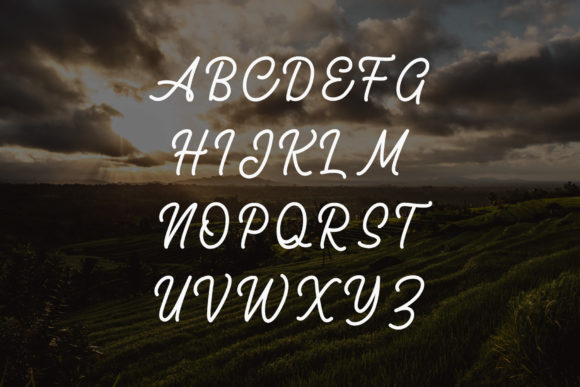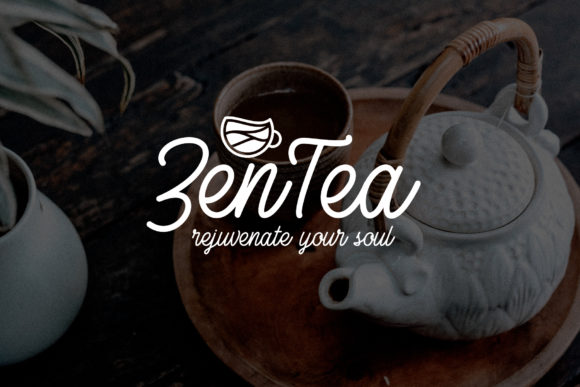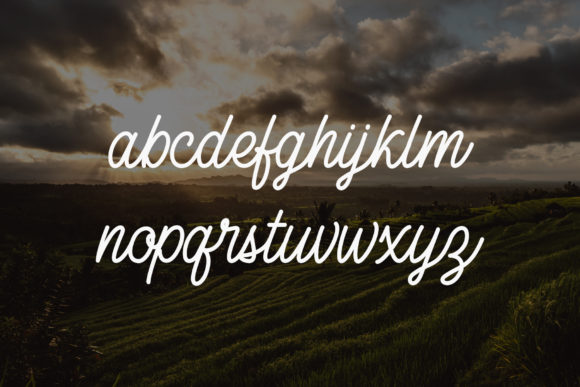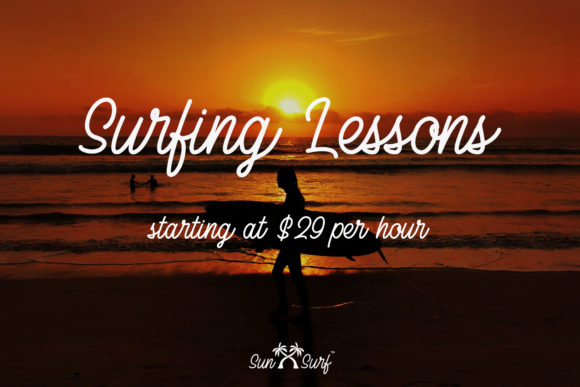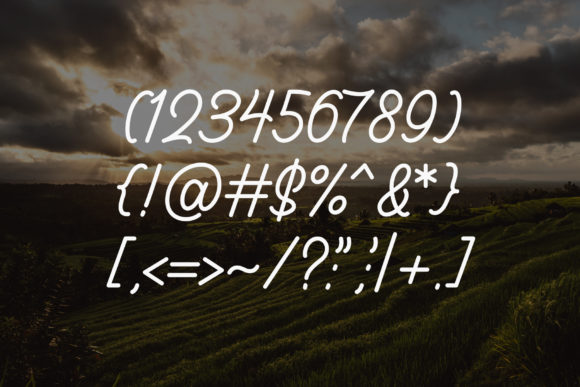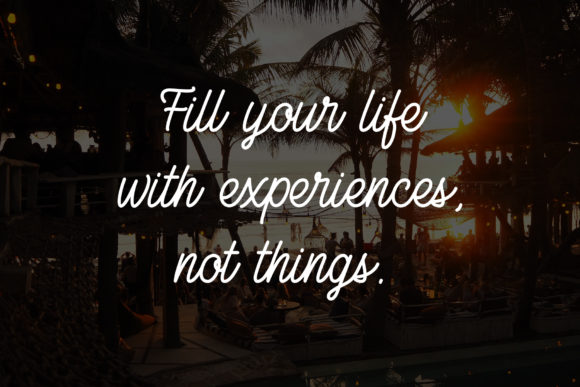
Canggu Font: The Perfect Handwritten Font for Your Creative Projects
Are you a designer or crafter looking for a beautiful and versatile font to elevate your creative projects? Look no further than Canggu Font! This gorgeous handwritten font is perfect for a wide range of applications, from clothing and branding to posters, signage, wedding invitations, badges, t-shirts, labels, and so much more.
What is Canggu Font?
Canggu Font is a stunning handwritten font that exudes elegance and sophistication. Its unique and flowing script is perfect for adding a personal touch to your designs, making them stand out from the crowd. The font is designed to be highly legible, making it suitable for use in a variety of contexts, from digital displays to print materials.
Features of Canggu Font
Canggu Font boasts a range of features that make it an ideal choice for designers and crafters. Some of its key features include:
- Handwritten script: Canggu Font features a beautiful, handwritten script that adds a personal touch to your designs.
- High legibility: The font is designed to be highly legible, making it suitable for use in a variety of contexts.
- Versatility: Canggu Font is perfect for a wide range of applications, from clothing and branding to posters, signage, wedding invitations, badges, t-shirts, labels, and more.
- Elegant and sophisticated: The font’s unique and flowing script exudes elegance and sophistication, making it perfect for designs that require a touch of class.
Uses of Canggu Font
Canggu Font is an incredibly versatile font that can be used in a wide range of creative projects. Some of the most popular uses for this font include:
- Clothing and branding: Canggu Font is perfect for creating eye-catching logos, labels, and packaging for clothing and accessories.
- Posters and signage: The font’s high legibility and elegant script make it ideal for use in posters, signage, and other display materials.
- Wedding invitations: Canggu Font is a popular choice for wedding invitations, adding a touch of elegance and sophistication to your special day.
- Badges and t-shirts: The font’s unique script is perfect for creating eye-catching badges and t-shirts that are sure to turn heads.
- Labels and packaging: Canggu Font is also great for creating labels and packaging for products, adding a personal touch to your brand.
Why Choose Canggu Font?
So why choose Canggu Font for your creative projects? Here are just a few reasons why this font stands out from the crowd:
- Unique and elegant script: Canggu Font features a beautiful, handwritten script that adds a touch of elegance and sophistication to your designs.
- Highly legible: The font is designed to be highly legible, making it suitable for use in a variety of contexts.
- Versatility: Canggu Font is perfect for a wide range of applications, from clothing and branding to posters, signage, wedding invitations, badges, t-shirts, labels, and more.
In conclusion, Canggu Font is a stunning handwritten font that is perfect for designers and crafters looking to add a touch of elegance and sophistication to their creative projects. Its unique and flowing script, high legibility, and versatility make it an ideal choice for a wide range of applications. Whether you’re creating clothing and branding, posters and signage, wedding invitations, badges, t-shirts, labels, or more, Canggu Font is sure to elevate your designs and make them stand out from the crowd.